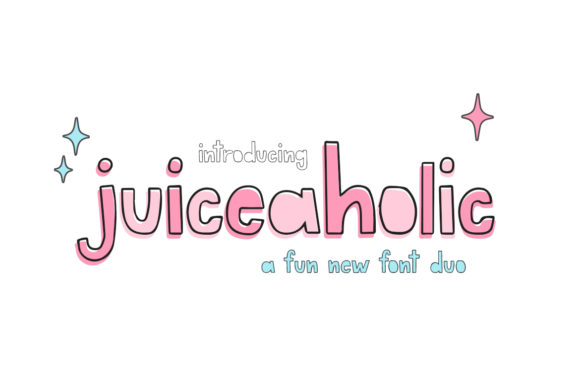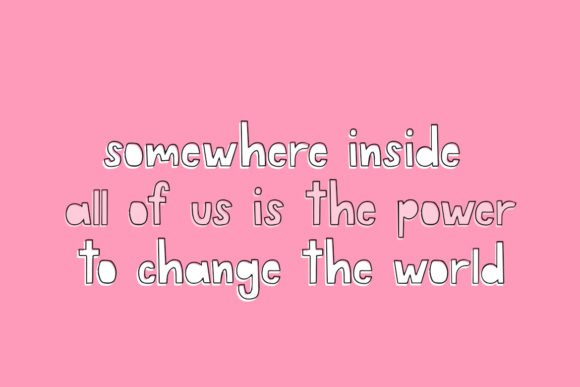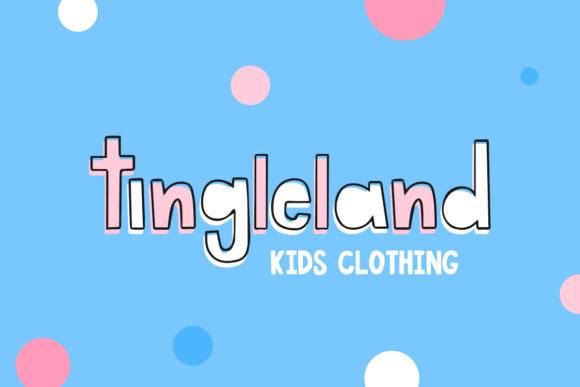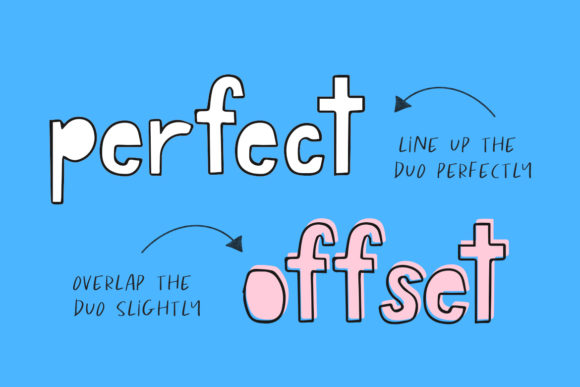
Juiceaholic Font: A Cute Display Font for Playful DIY & Cricut Designs!
About the Juiceaholic Font
Welcome to the world of Juiceaholic Font, a typeface that will inspire your next great project. Juiceaholic is a cute and playful display font. Joyful and neat, this font will give a fun, cartoon like vibe to each of your designs!
Juiceaholic excels in headlines, short slogans, and playful branding applications such as logos for juice bars or children’s products. Its cartoonish charm also makes it ideal for posters and packaging where a fun, eye-catching aesthetic is desired. However, avoid using it for body text or lengthy paragraphs; its informal style is not suitable for readability in extended blocks of copy. It’s also unsuitable for UI elements where clarity and legibility are paramount.
Pair Juiceaholic with a clean sans-serif like Open Sans for a balanced contrast—the sans-serif provides readability while Juiceaholic adds a playful punch. Alternatively, a classic serif like Garamond could offer sophisticated counterpoint to its informal nature. For a more whimsical feel, consider pairing it with a rounded script font.
Juiceaholic’s core personality is undeniably cheerful and friendly, making it a great choice for brands targeting a young or family-oriented audience. Its energy is lighthearted, not bold or aggressive, lending itself best to projects that prioritize approachability and fun.
Juiceaholic Font Usage Examples
Juiceaholic Font Example